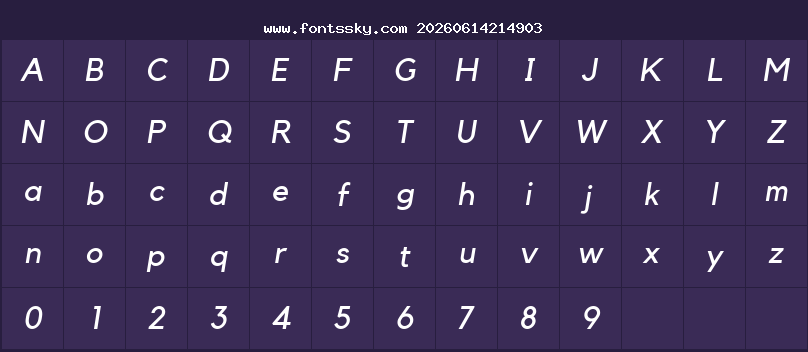
Kollektif Preview
• Font Name: Kollektif
• Full Font Name: Kollektif Italic
• Designer: Dogu Kaya
About Kollektif.ttf
Kollektif.ttf is a modern, elegant sans-serif font designed for ultimate readability and visual harmony. Perfect for branding, headlines, web design, and print materials.